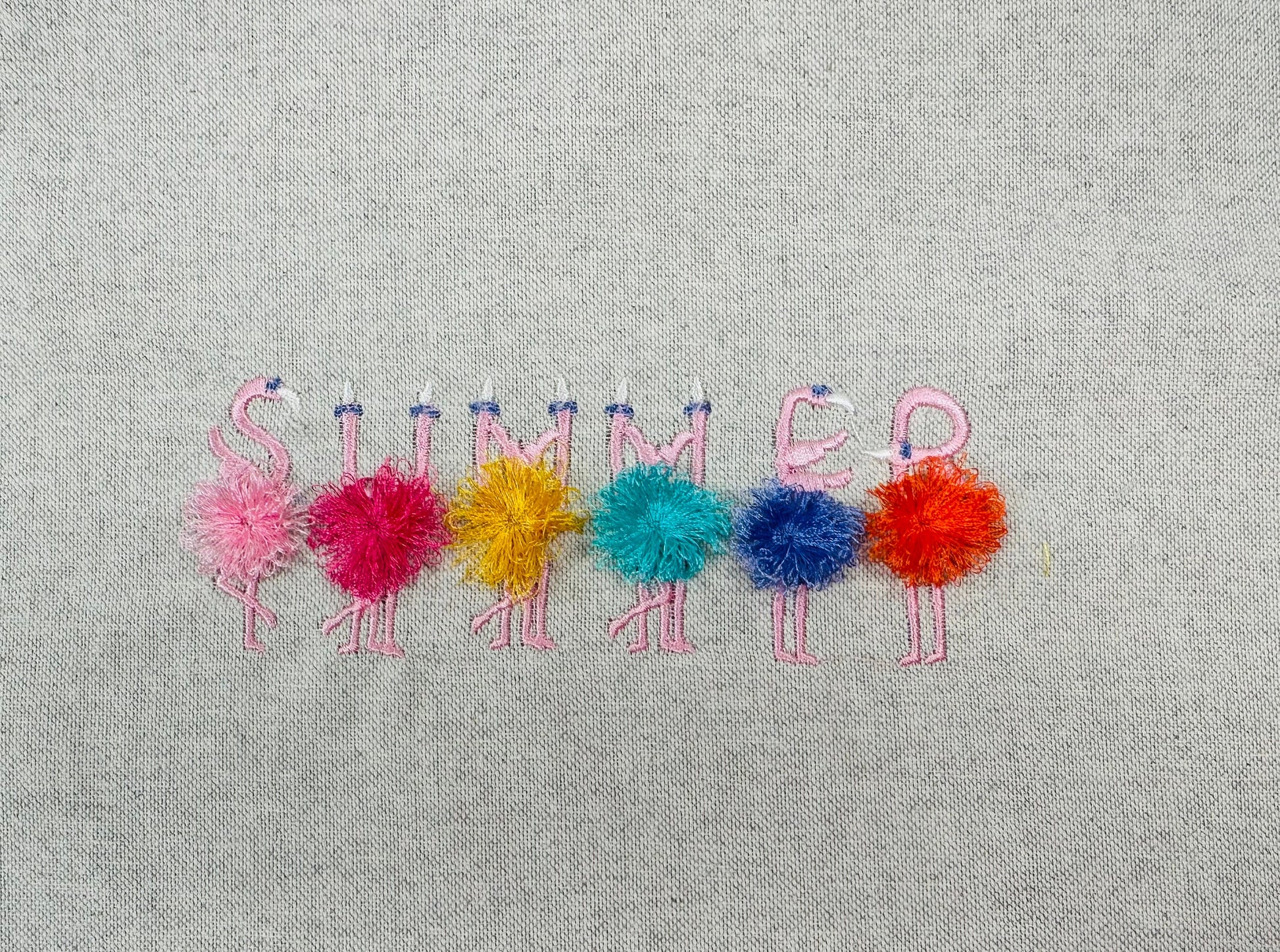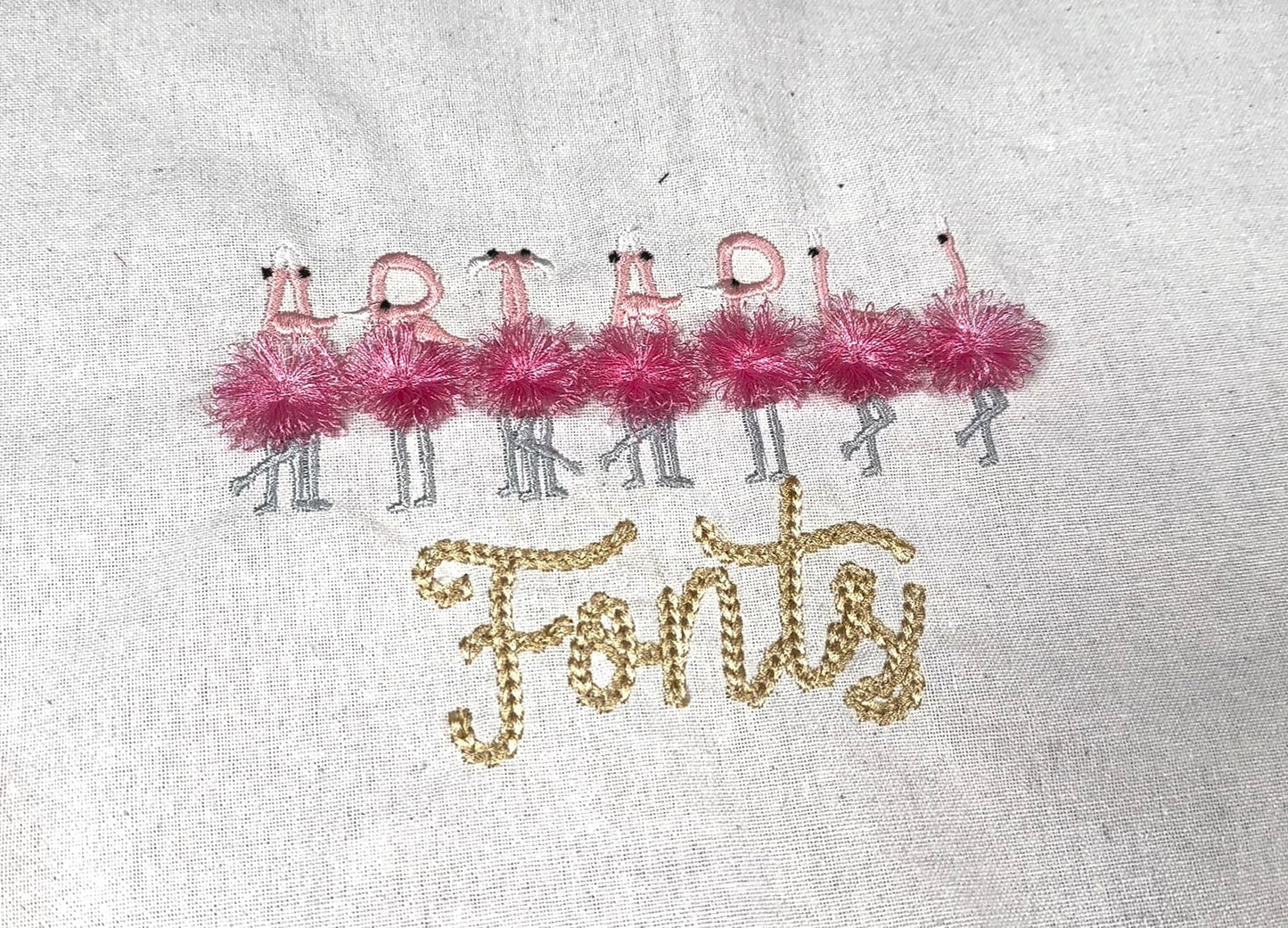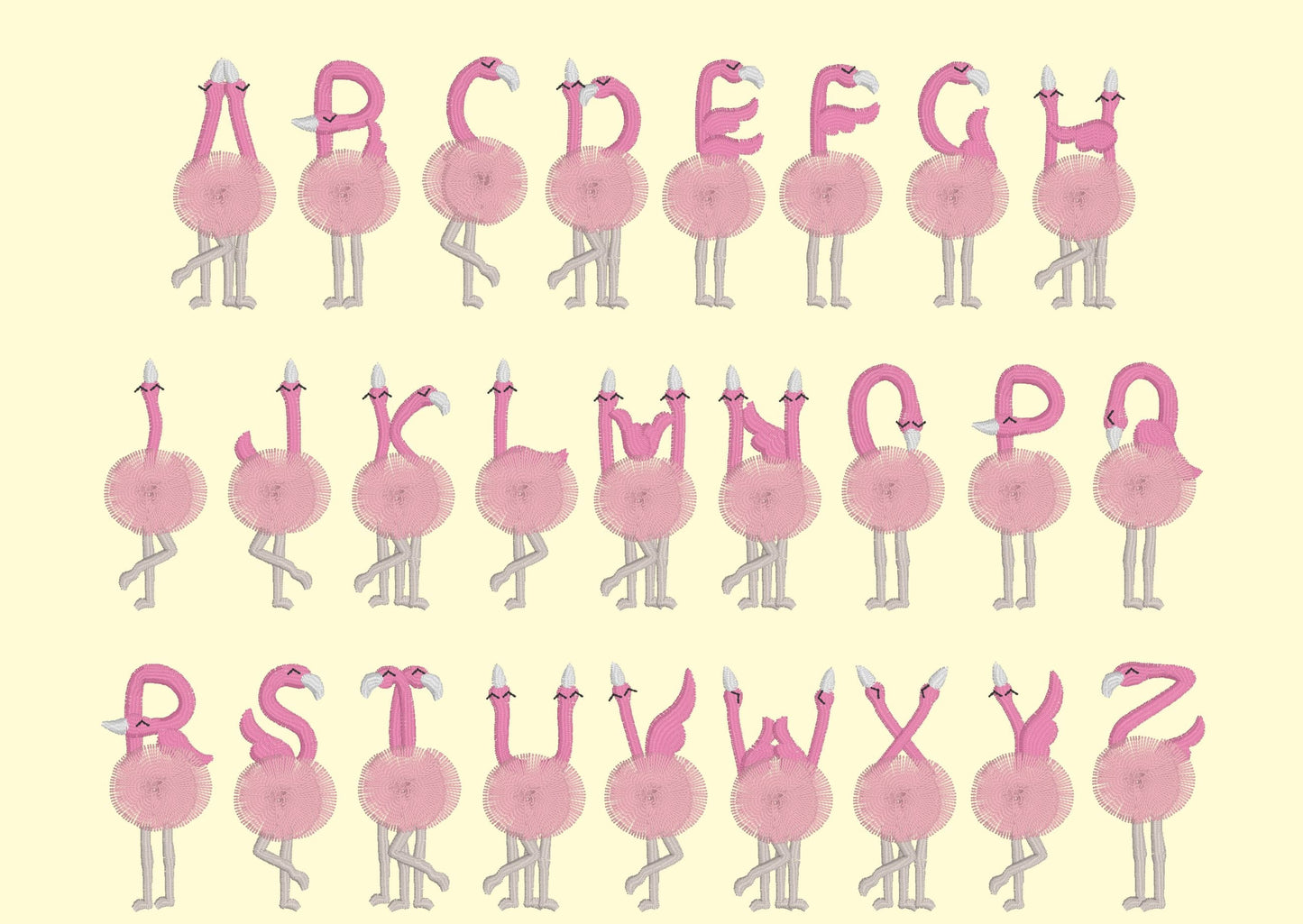
Or click to open the linkA small alphabet of fluffy fringed flamingos. Fun for kids' names, summer shirts, pillows and party gear.
All 26 letters, A to Z, each with a flamingo and fringe, in three small sizes: 2.5, 3 and 3.5 inches. The fringe is held by a hidden seam, so it is safe to wash.